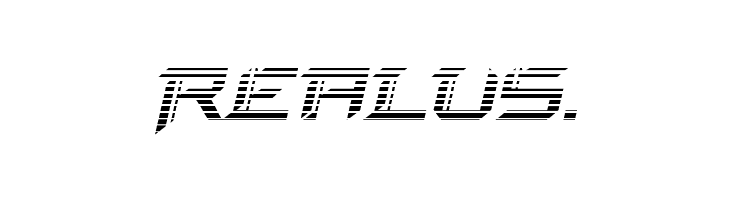
• Fiddler's Cove 3D Italic
A bold, 3D italic font with outlined characters and a dynamic style.
• Fiddler's Cove Academy Italic
A bold, italicized font with a decorative, three-dimensional shadow effect.
• Fiddler's Cove Bold Italic
A bold, italicized font with thick strokes and a dynamic slant.
• Fiddler's Cove Condensed Italic
A bold, condensed, and italicized font with sharp, angular edges and high contrast.
• Fiddler's Cove Expanded Italic
A bold, expanded italic font with high contrast and a vintage-modern style.
• Fiddler's Cove Italic
A bold, italic font with angular edges and a dynamic style.
• Fiddler's Cove Leftalic
A bold, left-leaning font with sharp angles and a dynamic style.
• Fight Kid Condensed Italic
A bold, condensed, and italic font with high contrast and dynamic, brush-like strokes.
• Fight Kid Italic
A bold, brush-style italic font with dynamic, expressive strokes.
• Fighterland Script Italic
A fluid and elegant script font with interconnected cursive letters.
• Fighting Spirit TBS Italic
A bold, dynamic font with sharp, angular strokes and an italicized style.
• Fighting Spirit turbo Bold Italic
A bold, italic font with sharp, angular edges and dynamic movement.
• Fighting Spirit turbo Bold Italic
A bold, angular font with sharp, dynamic strokes, ideal for energetic designs.
• Fighting Spirit turbo Italic
A bold, italicized font with sharp, angular strokes and a dynamic, aggressive style.
• Fighting Spirit turbo Italic
A bold, italicized font with sharp, angular strokes conveying speed and intensity.
• Fighting wordz Bold Italic
A bold, italicized font with dynamic, brush-like strokes.
• Fighting wordz Italic
A bold, italic script font with dynamic, brush-like strokes.
• FILLET O FISH Bold Italic
A bold, italicized font with dynamic, thick strokes and a cohesive style.